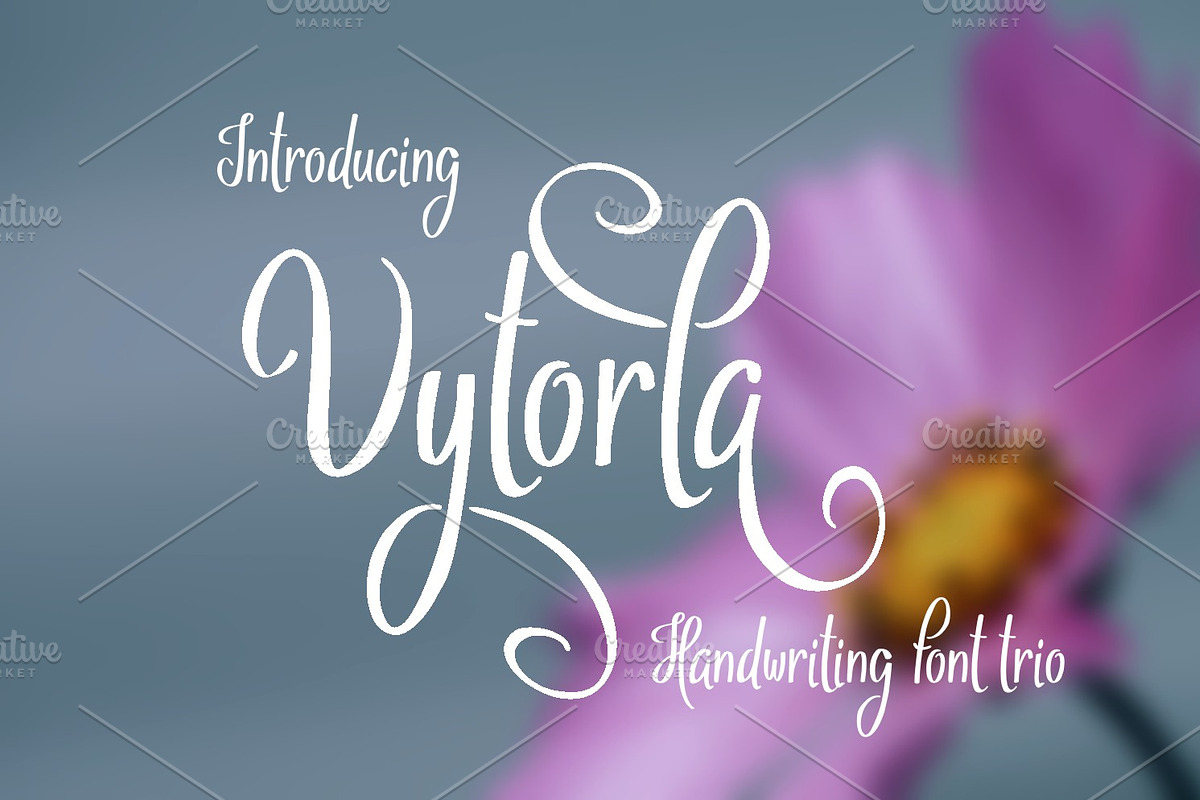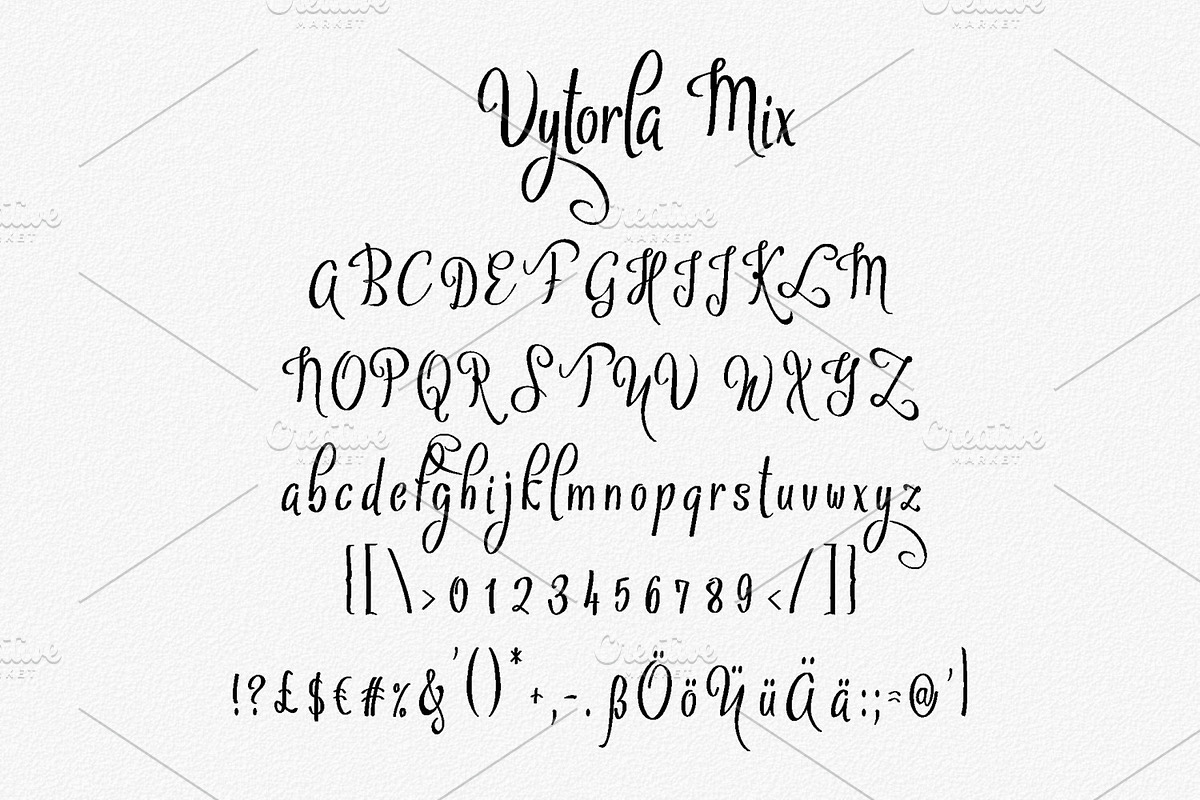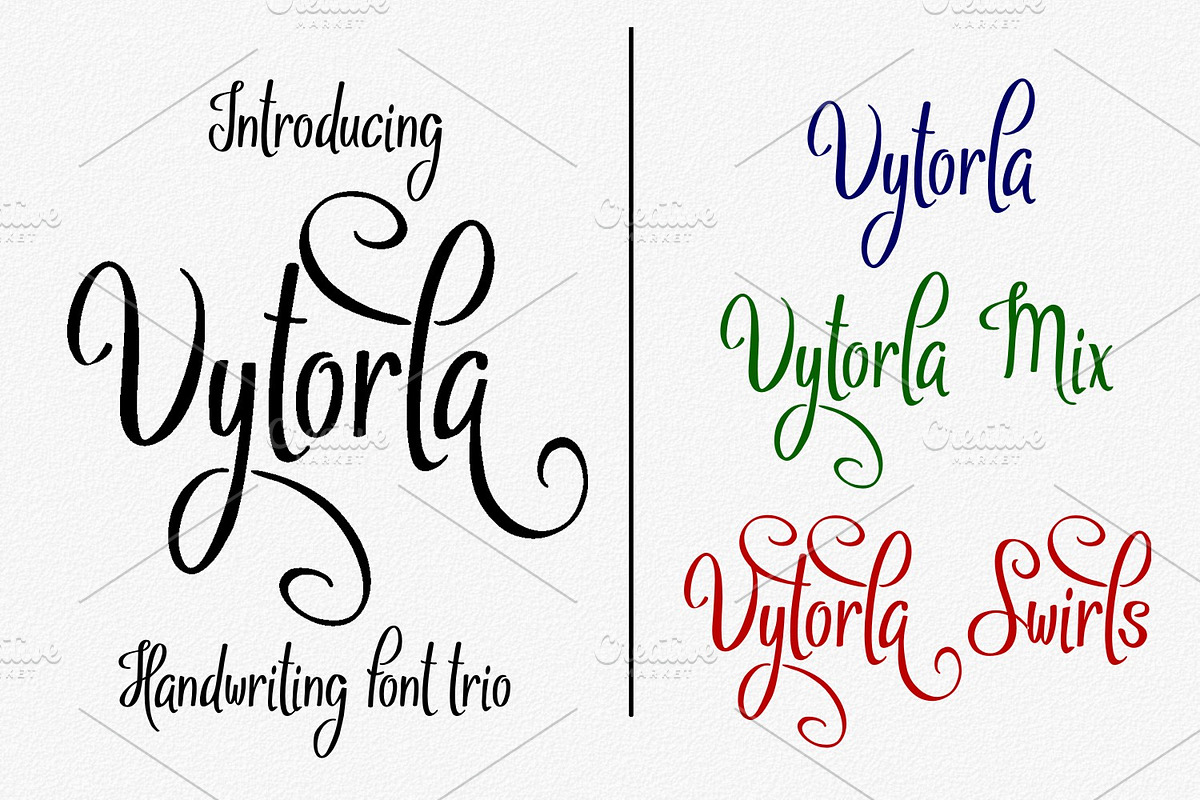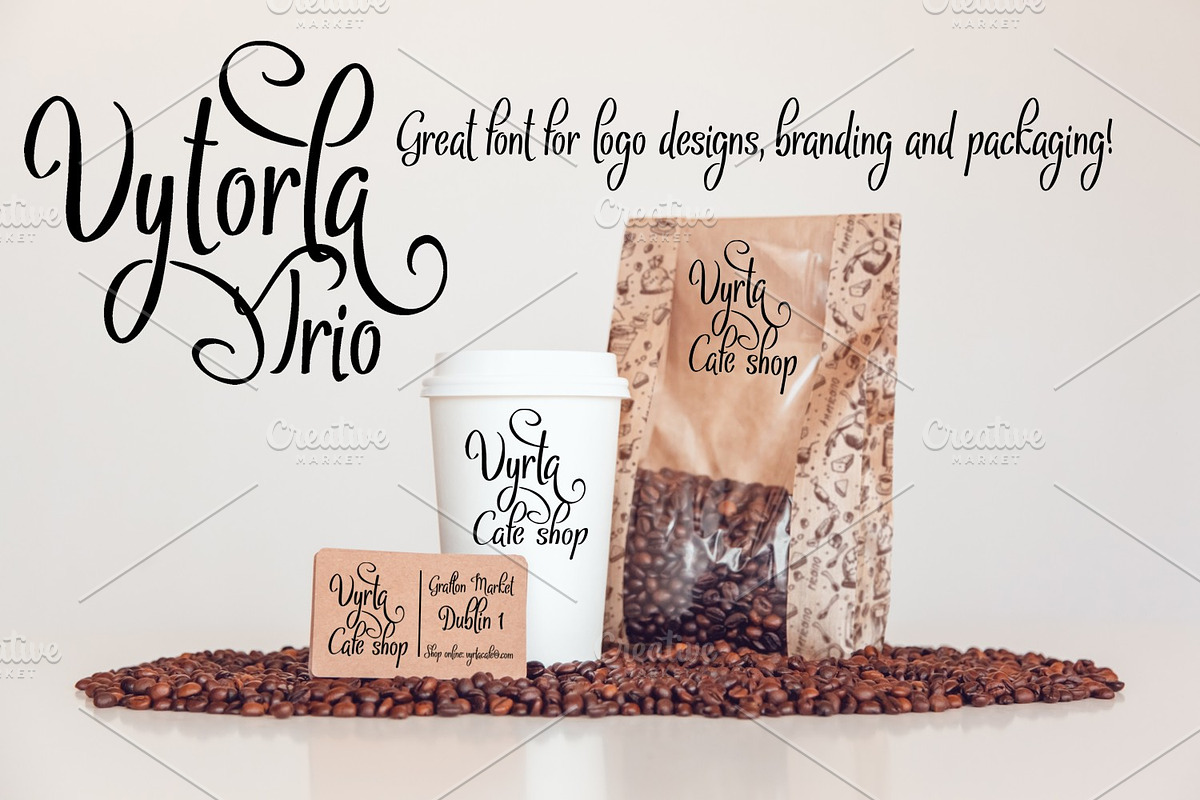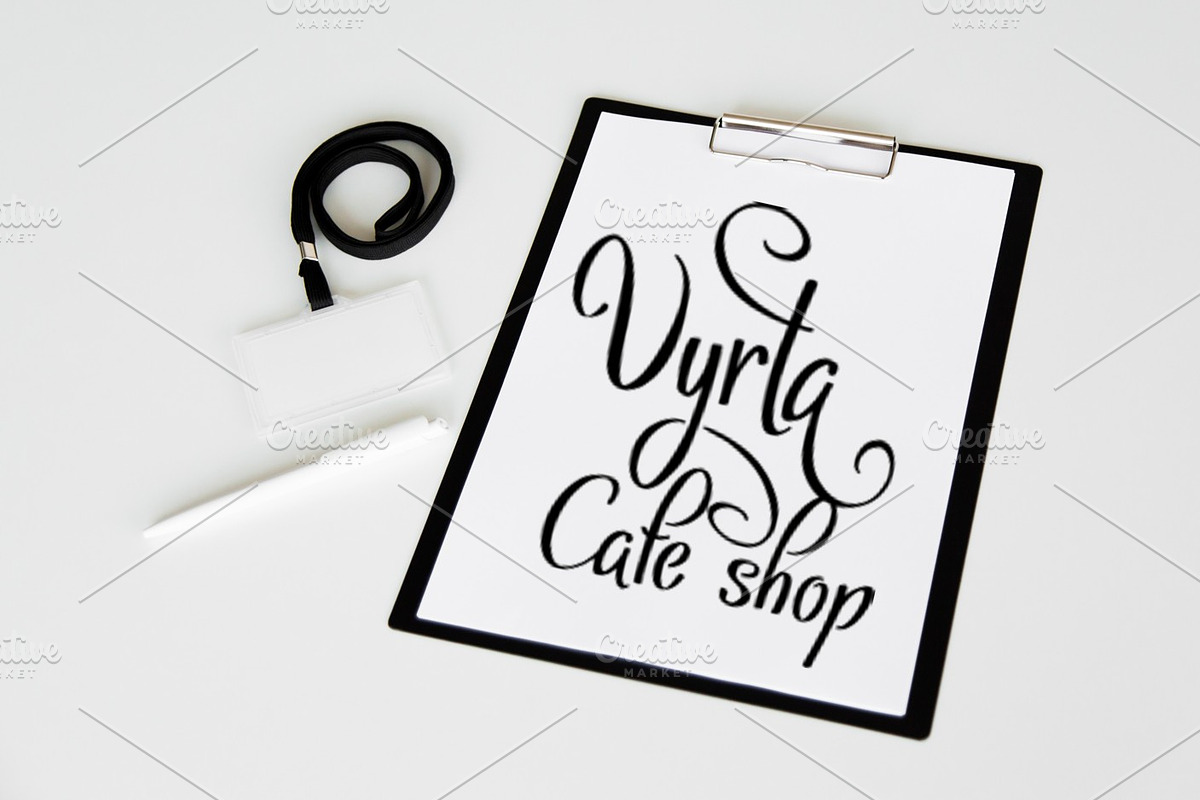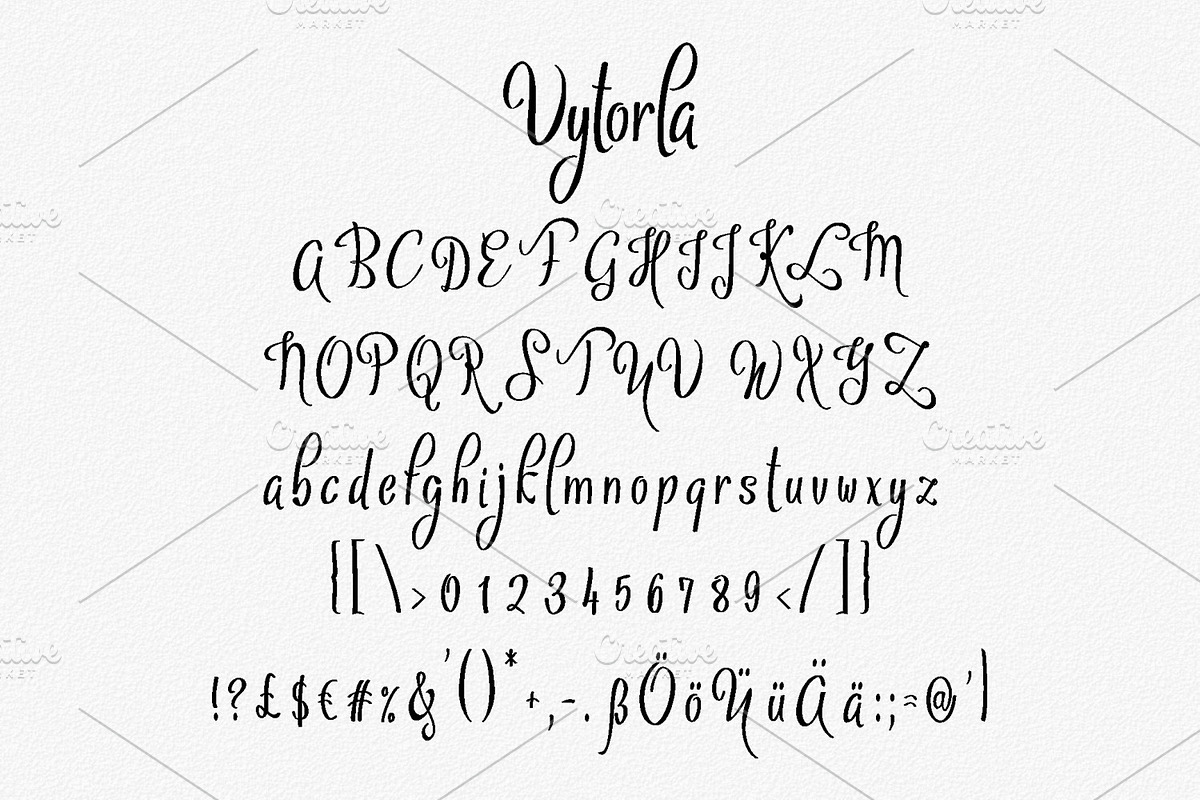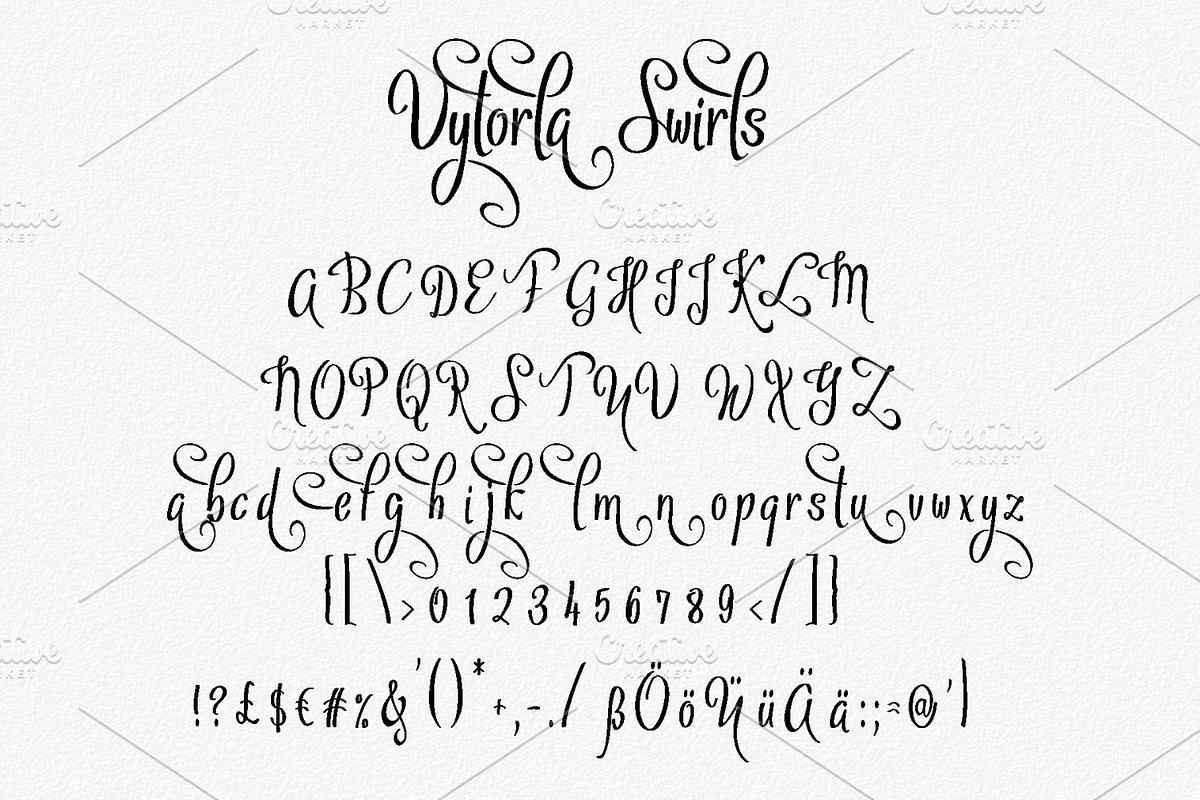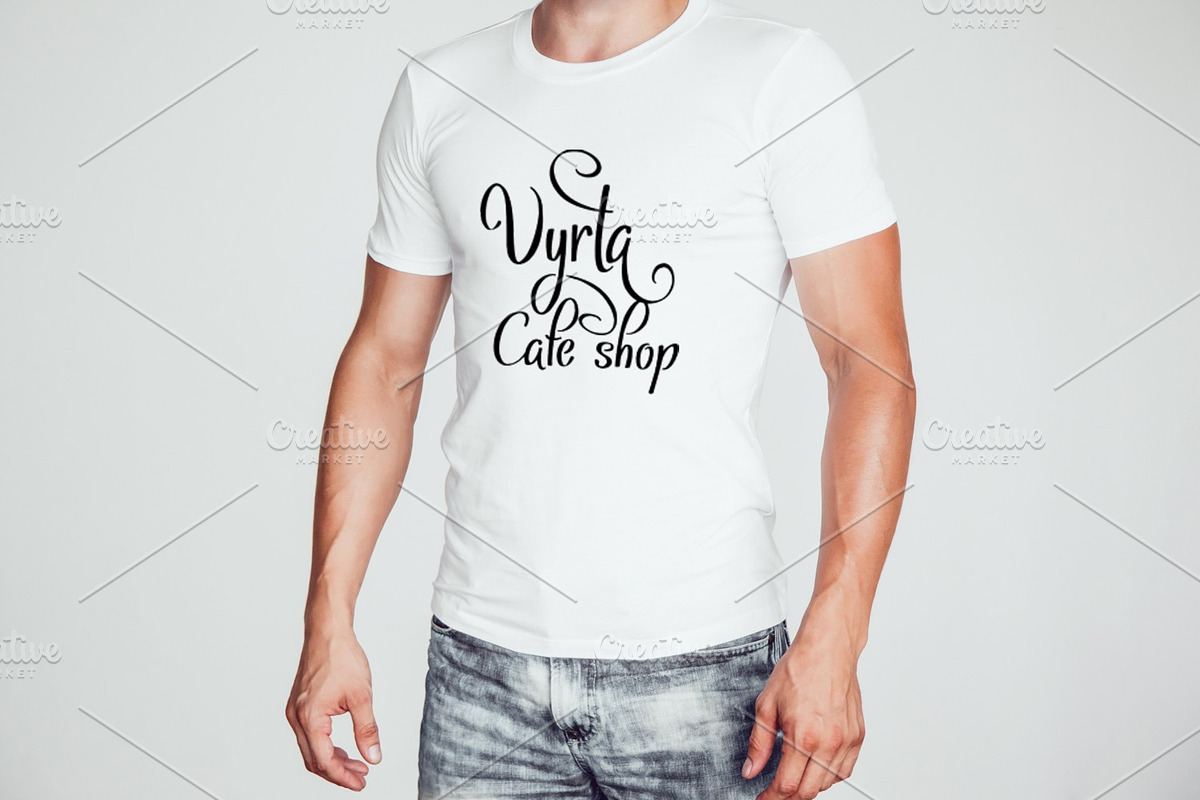
Vytorla Font Trio
Introducing Vytorla handwriting font trio.
Perfect for wedding desings and many other creative craft area such as stencils, engraving, laser cutting and more!
- Vytorla Regular
- Vytorla Mix Regular
- Vytorla Swirls Regular
Why Vytorla Font Trio is worth a look
Vytorla Font Trio by Digital Typeface Studio fits naturally into Branding, posters, packaging, typography.